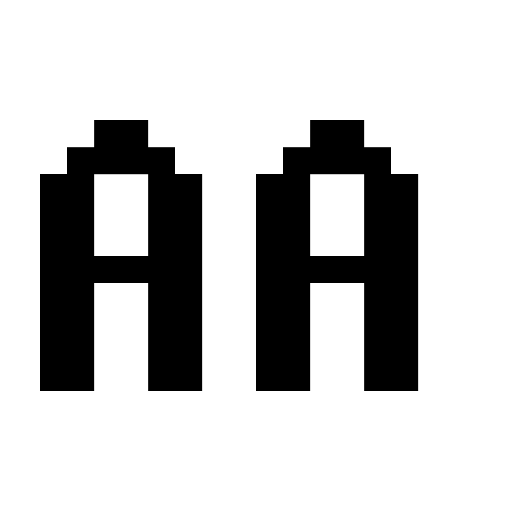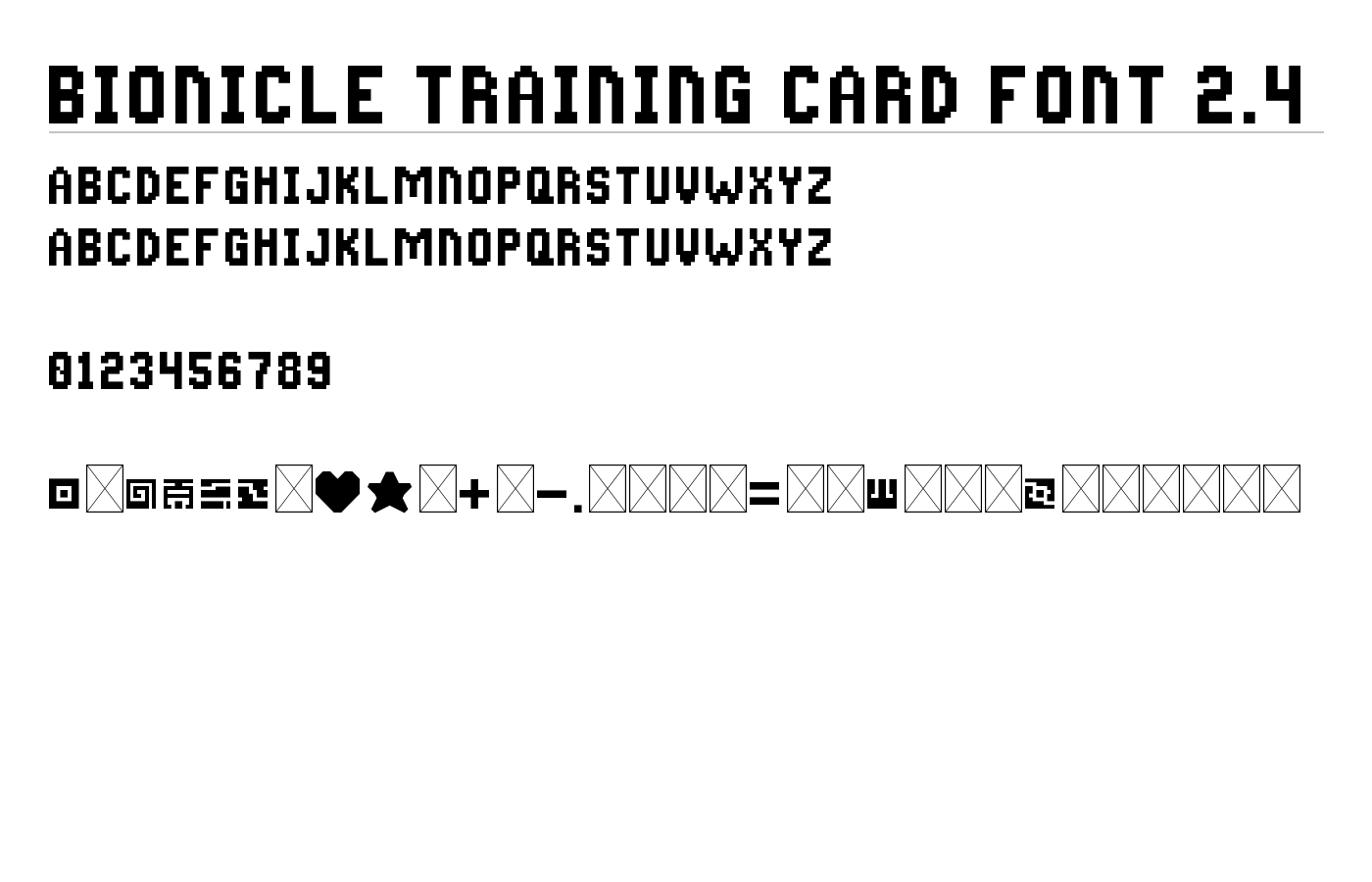
Bionicle Training Card Font 2.4 is a bold, pixelated sans serif font with a strong retro gaming vibe, featuring blocky, geometric letterforms that evoke digital screens and classic video game aesthetics. Its all-caps design with consistent stroke weight and tight spacing makes it ideal for nostalgic or tech-themed projects, particularly in logos, posters, or digital interfaces where a fun, playful yet structured look is desired. This font works best for headlines or short phrases, lending a vintage, digital personality to creative branding and gaming-related designs.